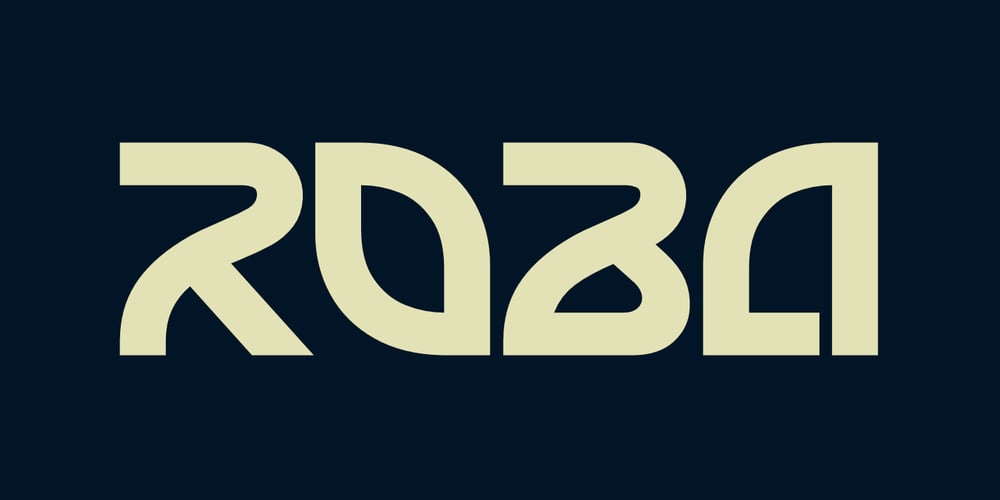
Roba Font Family was designed by Saiful Anwar and published by Sealoung. Roba contains 1 styles and family package options. Introducing Roba Display, a cutting-edge typeface designed to elevate your brand identity. Crafted with meticulous precision, every detail of Roba is mathematically perfected to captivate your audience. Roba is versatile, making it ideal for corporate use and a wide range of projects such as branding, logos, titles, headlines, posters, digital ads, and more.